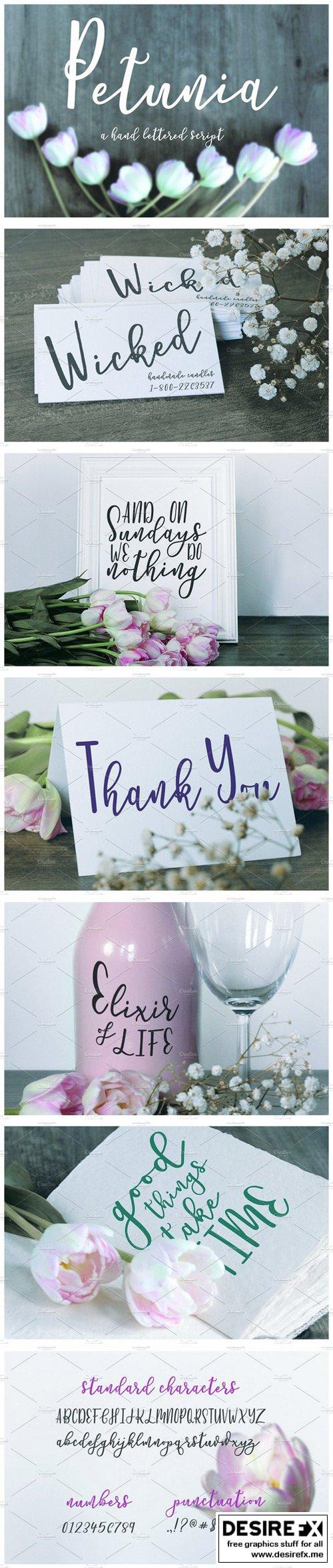
Petunia Script
Introducing: Petunia! A quirky hand lettered script perfect for any time you want a hand made look without the effort of making it look legible.